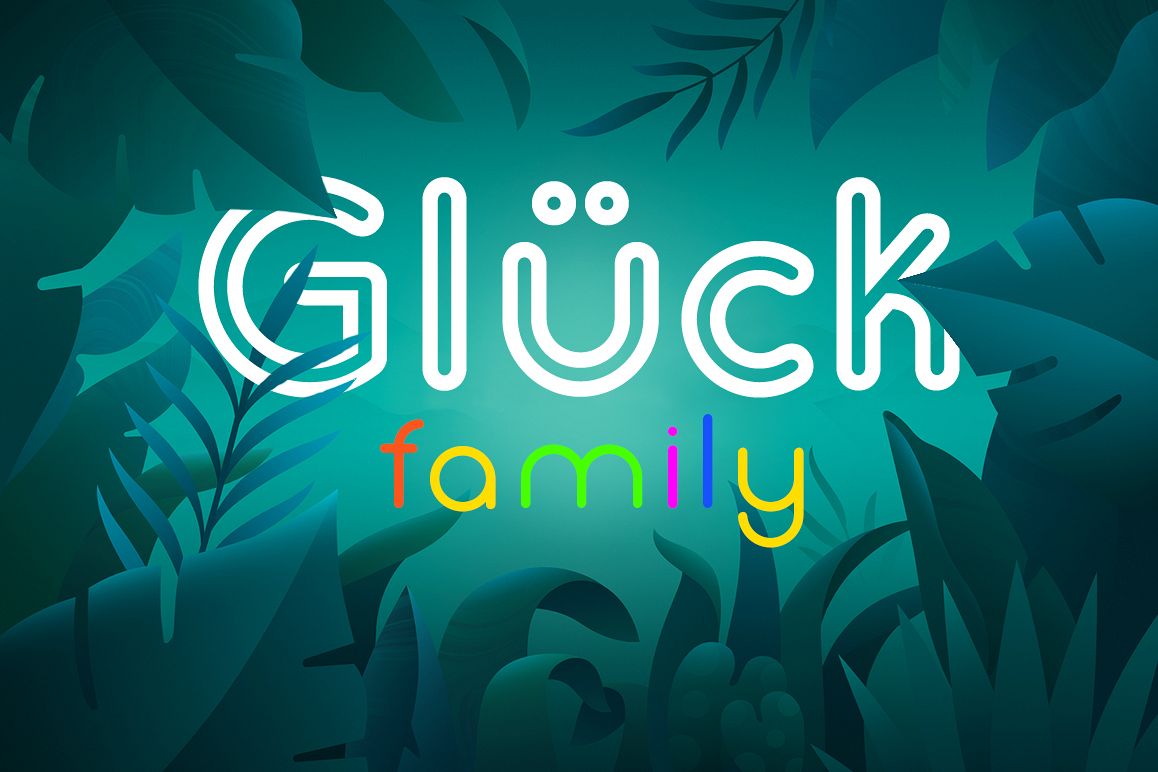
Gluck Family
Gluck-Boldstroked
Gluck-Stroked
Gluck-Regular
Gluck-Bold
Gluck-Rough
Gluck-BoldRough
Gluck-Stripes45
Gluck family is based on sans serif font and includes 4 styles:
• regular
• stroked
• bold
• bold stroked
• rough
• bold rough
• stripes 45
Gluck Family